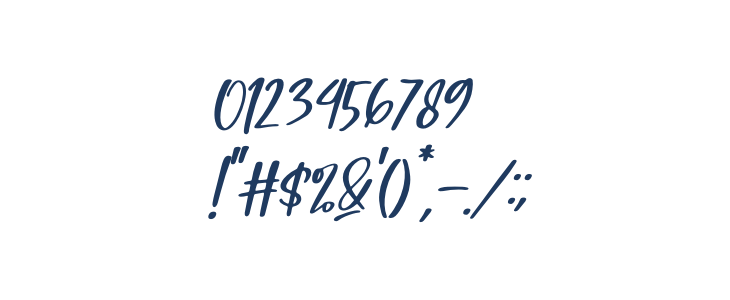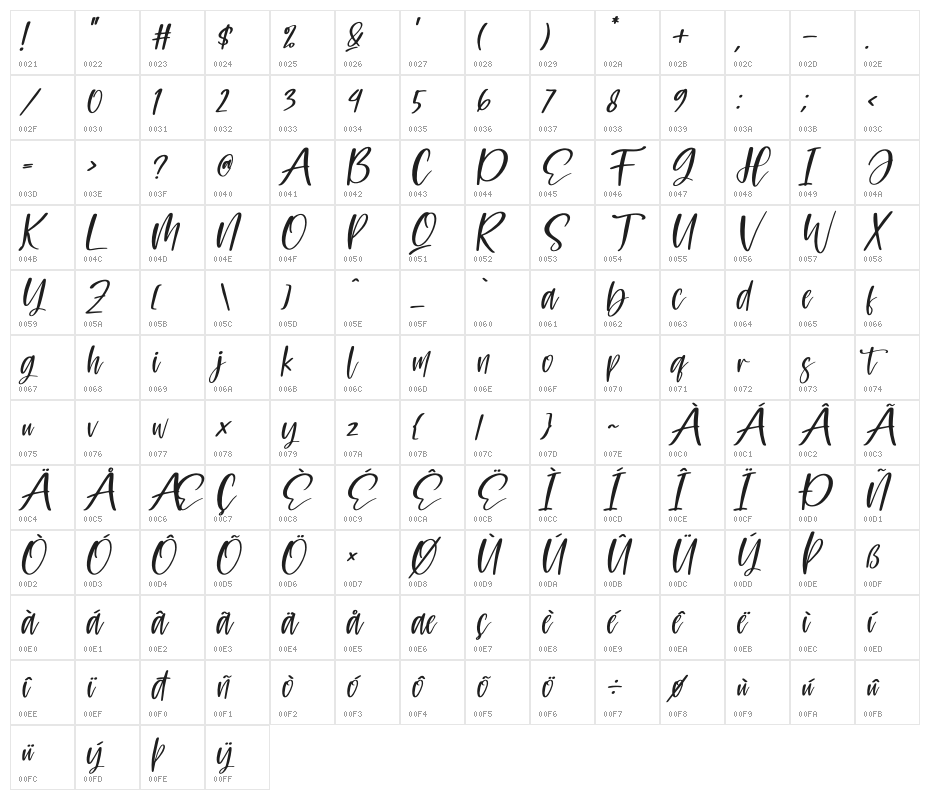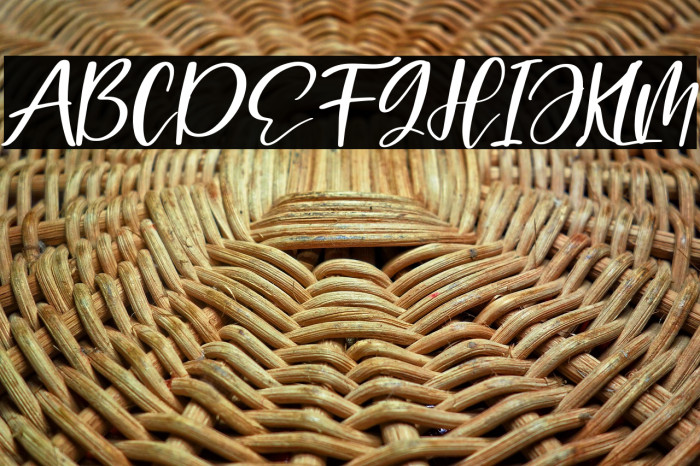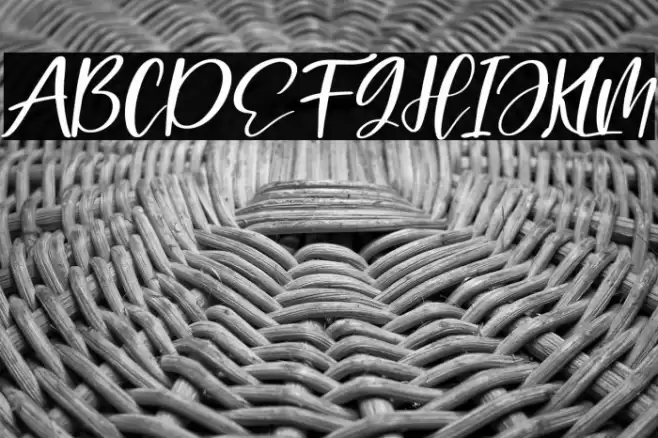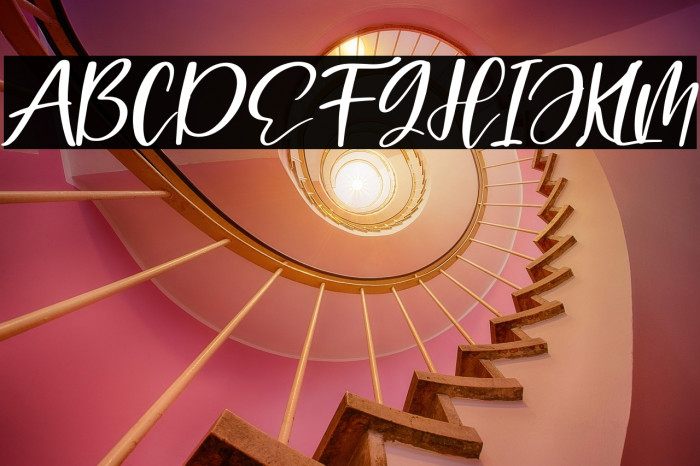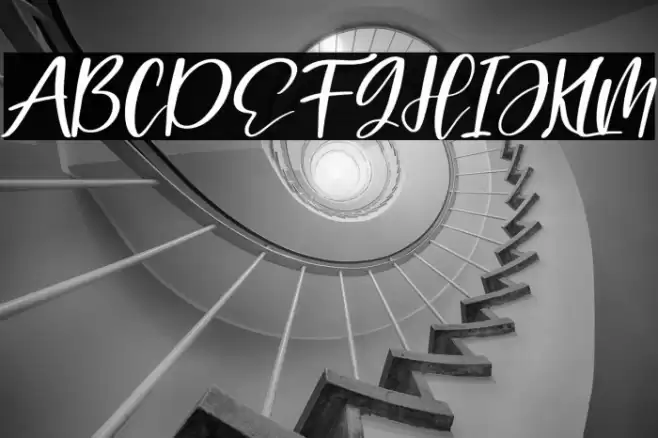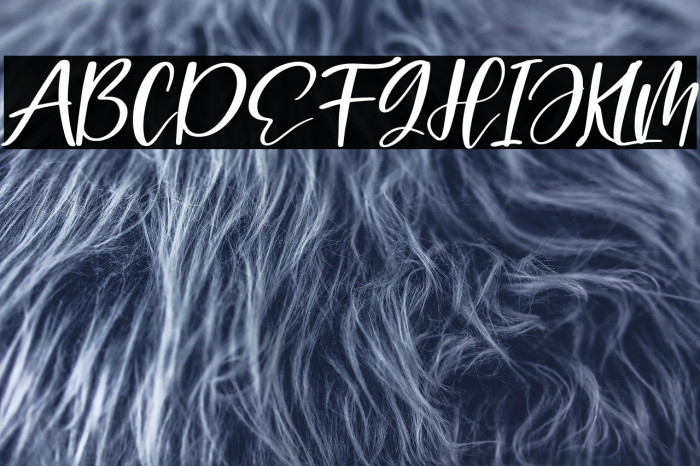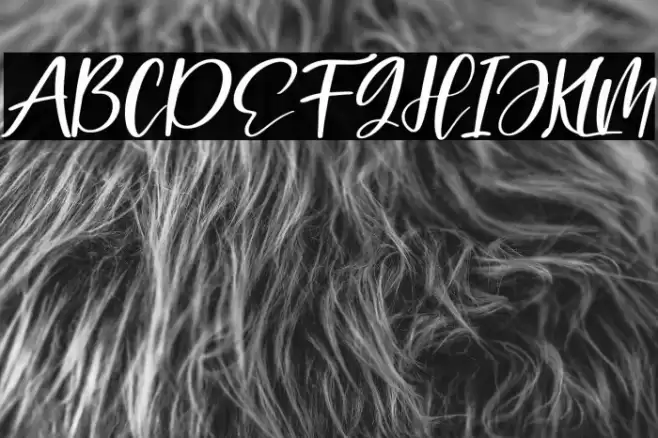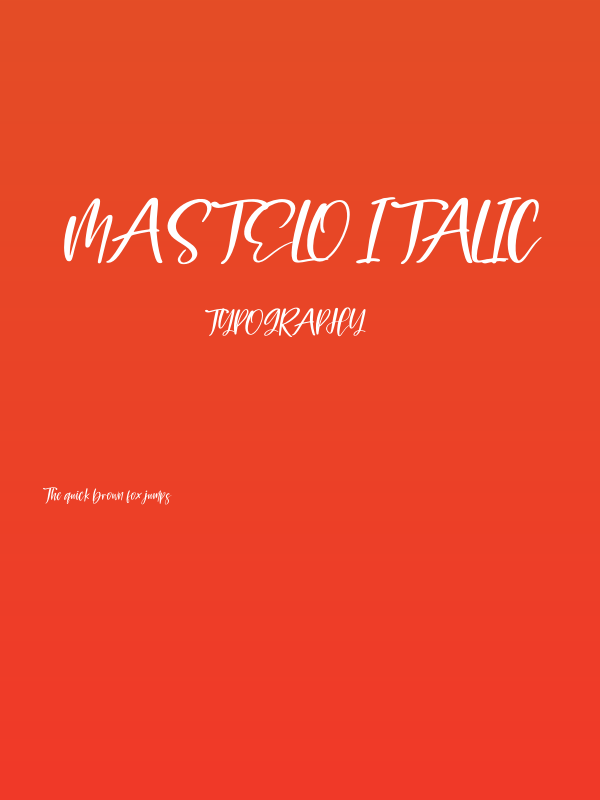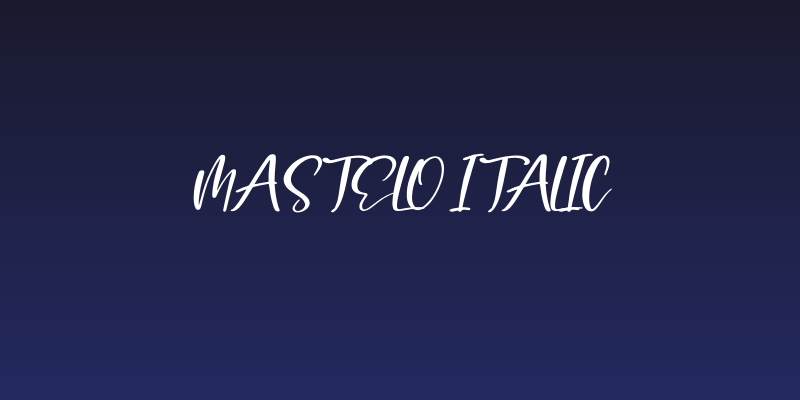
Mastelo Italic Font
Mastelo Italic Description
This font features a dynamic and flowing script style, characterized by its elegant and fluid letterforms. The strokes are smooth and connected, giving it a handwritten appearance that is both stylish and approachable. The uppercase letters are bold and prominent, while the lowercase letters maintain a consistent flow, enhancing readability. The numerals and special characters are crafted with the same attention to detail, ensuring a cohesive look across all text elements. This font's italic nature adds a sense of movement and grace, making it suitable for a variety of creative applications.